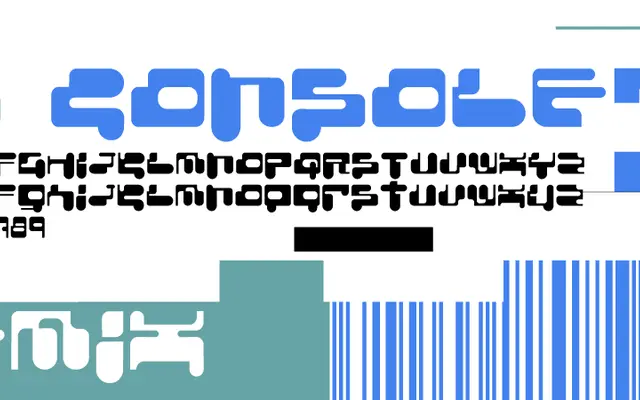
BD Console Remix
A late-1990s pixel-style remix originally produced by Savwo at Cyclone Graphix in Tokyo, available in Regular and Italic.
Remixed in 1998 by Savwo from Cyclone Graphix, Tokyo, this console-flavoured display face carries the chunky, screen-grid aesthetic common to Japanese digital design of that era. The family is minimal: Regular and Italic only, with Basic Latin coverage and a selection of Latin-1 Supplement characters. It suits retro game interfaces, lo-fi editorial work and any project leaning into late-1990s digital nostalgia.
A remixed console-style typeface with a pixel-derived aesthetic rooted in late-1990s Japanese digital design culture, placing it firmly in the display category with a retro-tech subcategory.